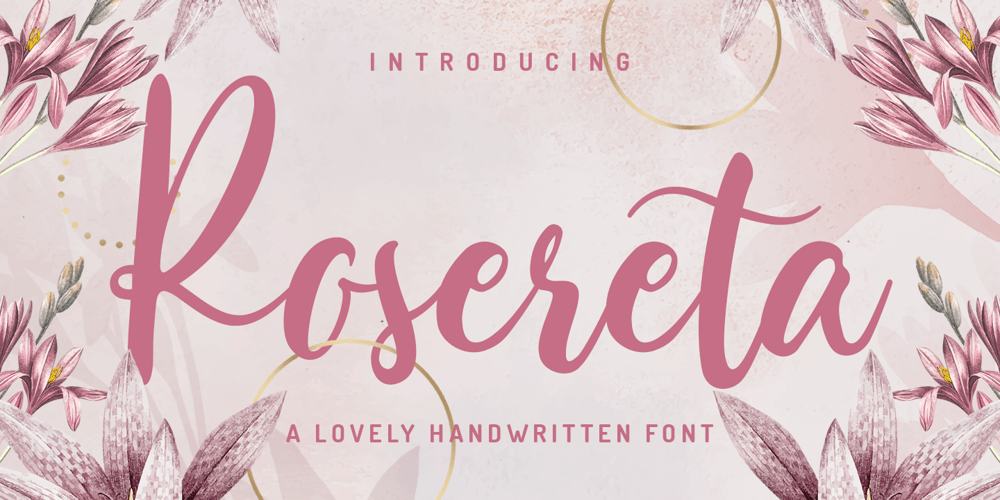
Rosereta
Rosereta font
Rosereta Font Family was designed by Abdul Malik Wisnu and published by Almarkha Type. Rosereta contains 1 styles and family package options. Rosereta – Lovely Script font with a natural handwritten feel. This handmade font will make your design has a beautiful natural touch for each details. It is perfect for any design project as Invitation,logo, book cover, craft or any design purposes.This font is PUA encoded which means you can access all of ligatures.